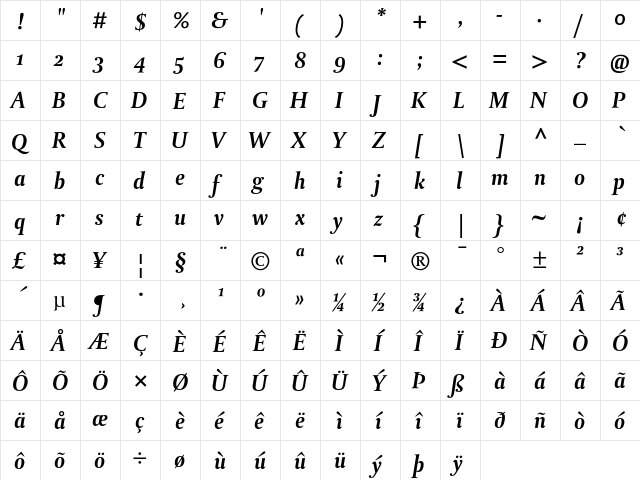
DTLParadoxST BoldItalic Font Preview
Design Context for DTLParadoxST Typeface
DTLParadoxST offers clean, dependable letterforms without strong stylistic allegiance, making it a practical choice for designers who need flexibility. The slanted form adds forward momentum and visual energy. The heavy weight commands attention and anchors typographic hierarchies.
Pro Tip: Try DTLParadoxST for annotation and caption copy alongside an upright companion — the contrast in angle creates a dynamic but ordered typographic system.